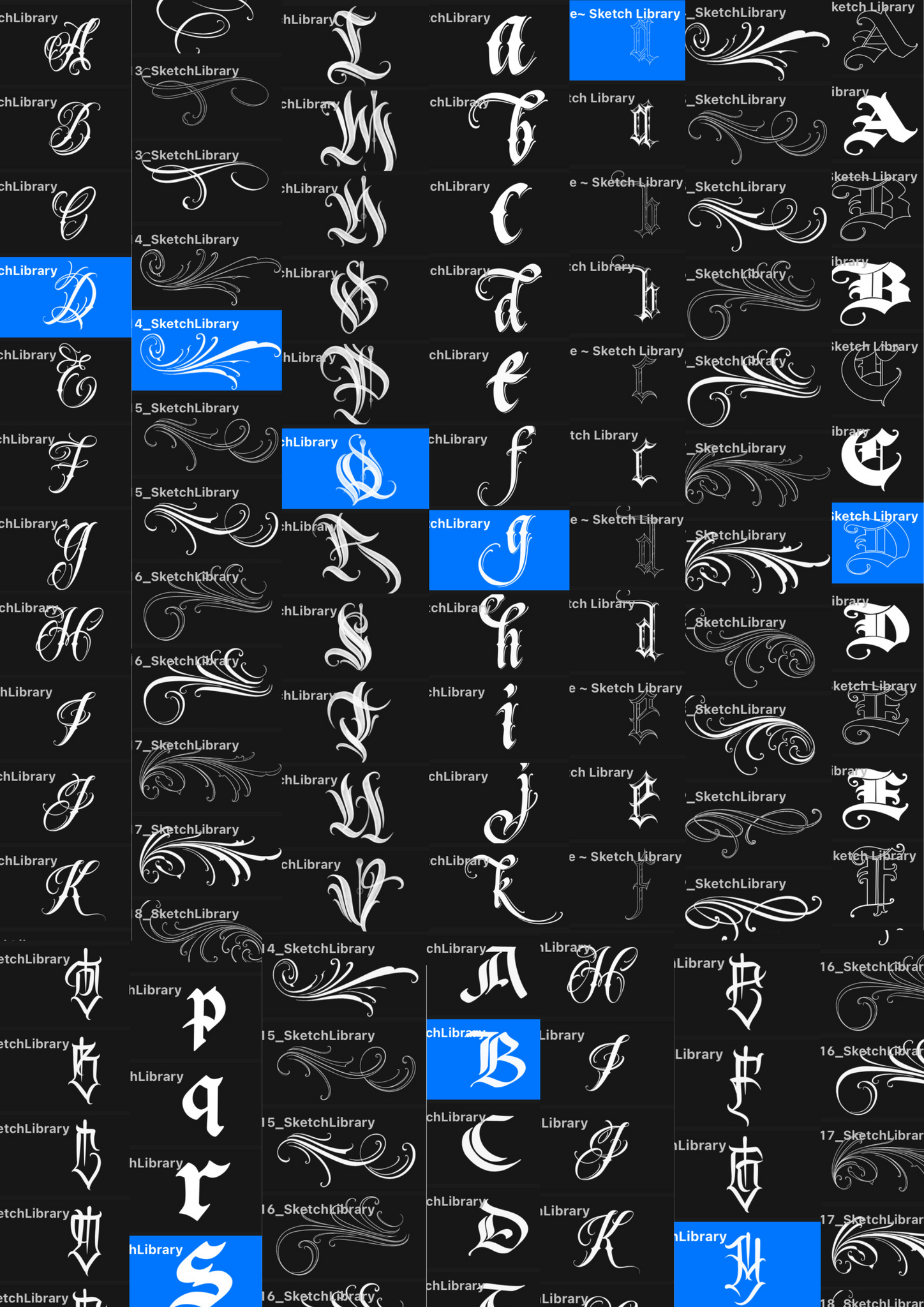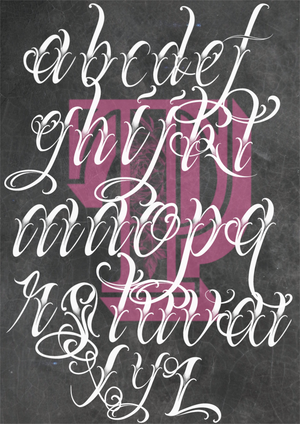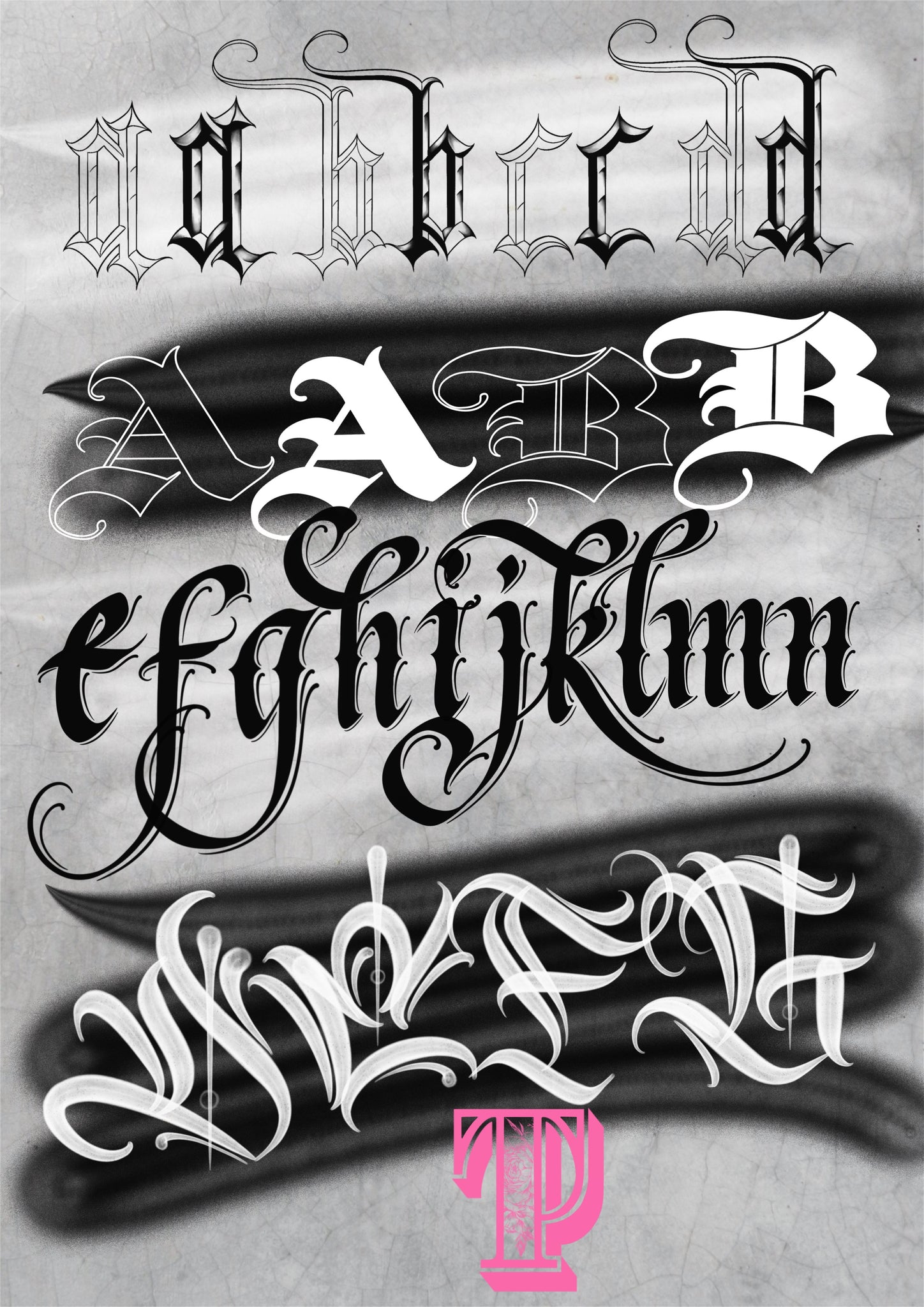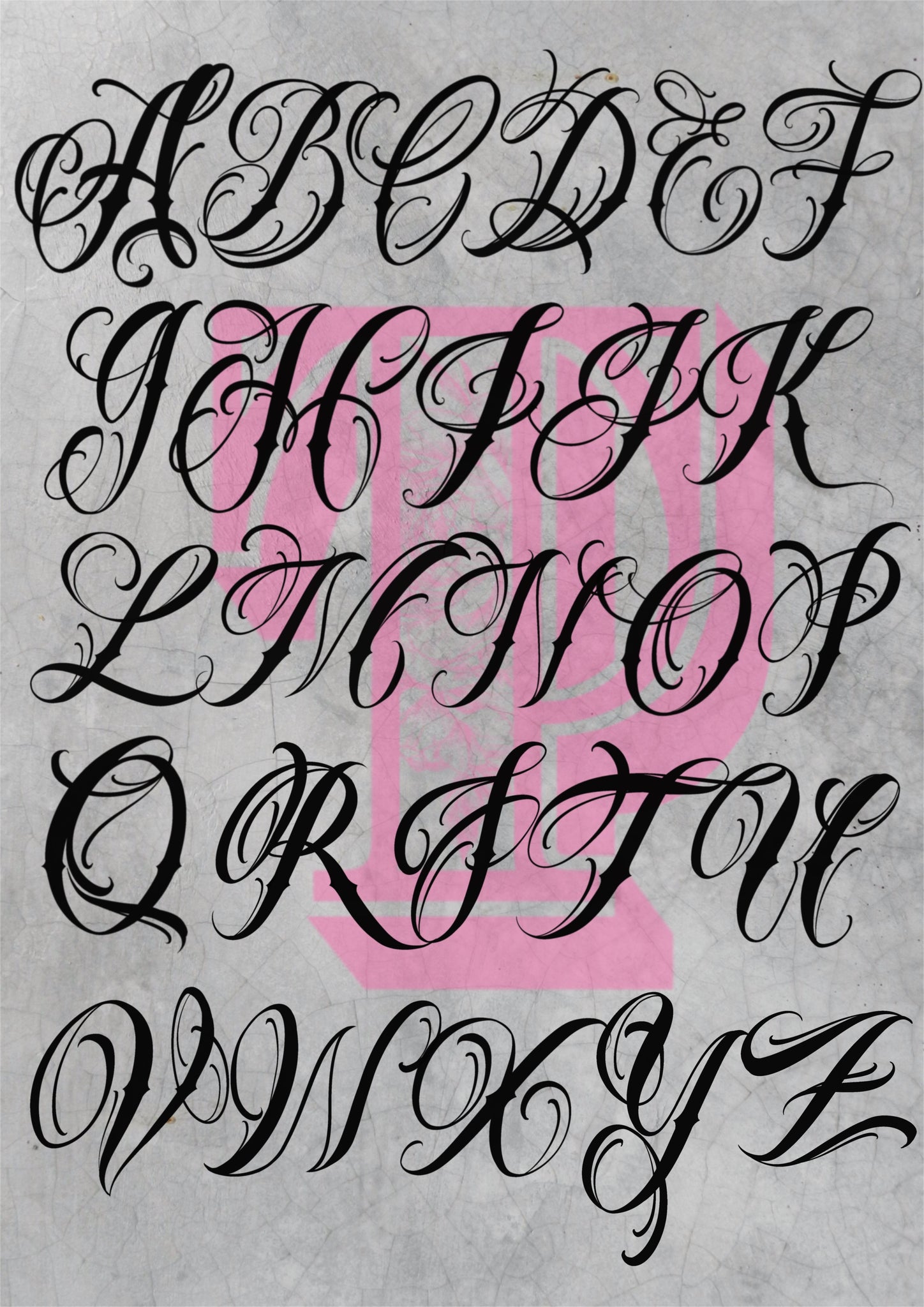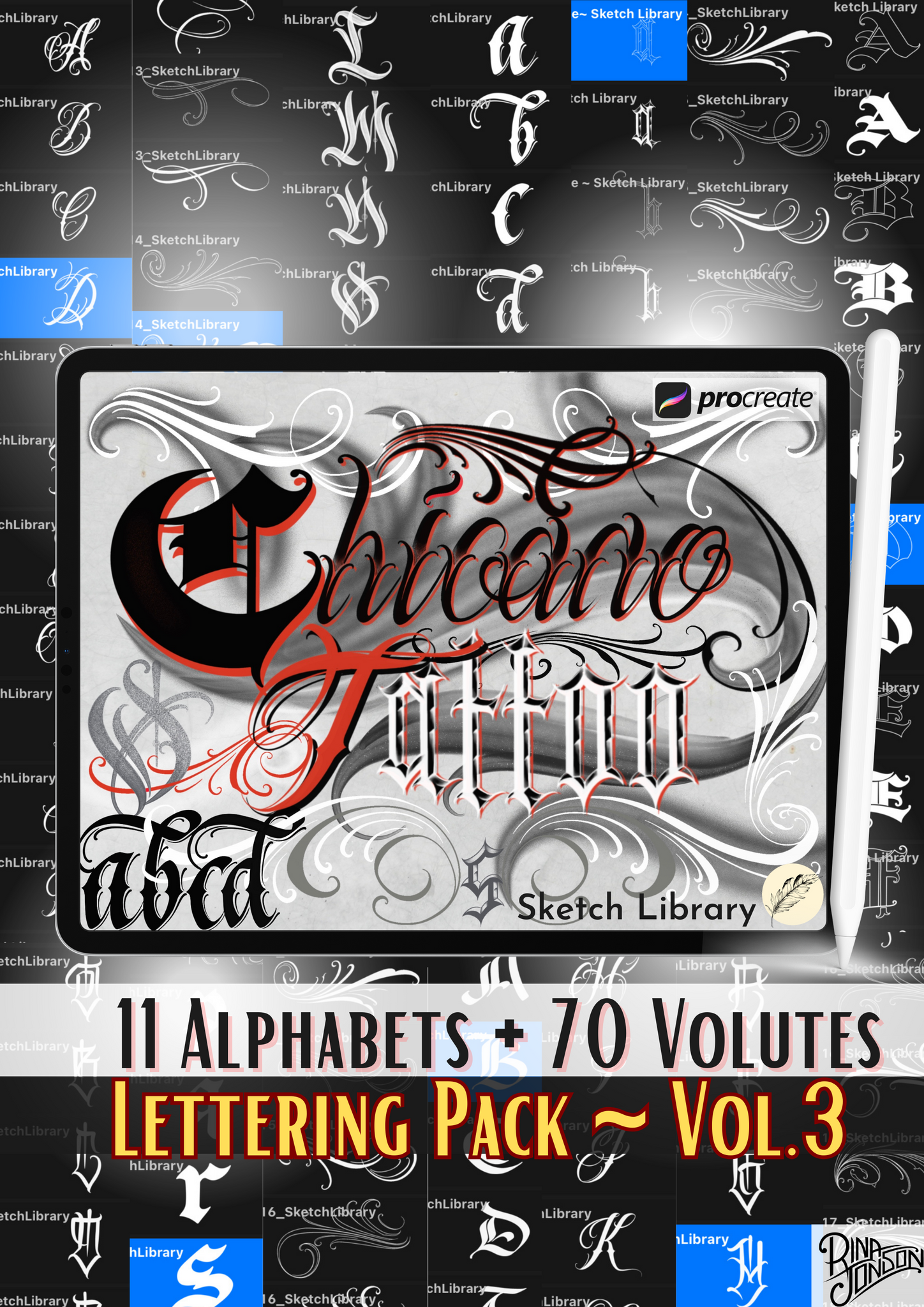
Chicano BrushPack Vol.3 11 Alphabets & Volutes brushes for procreate, Ipad and Ipad pro, tattoo stamps, stencil, font, calligraphy, graffiti
Elevate your digital tattoo artistry with the "11 Alphabets Chicano Tattoo Letters" brush pack designed for Procreate. Crafted by renowned tattoo artist Rina Jonson (Yann Rajaonson), these brushes embody a captivating fusion of Gothic, tattoo, and calligraphy styles.